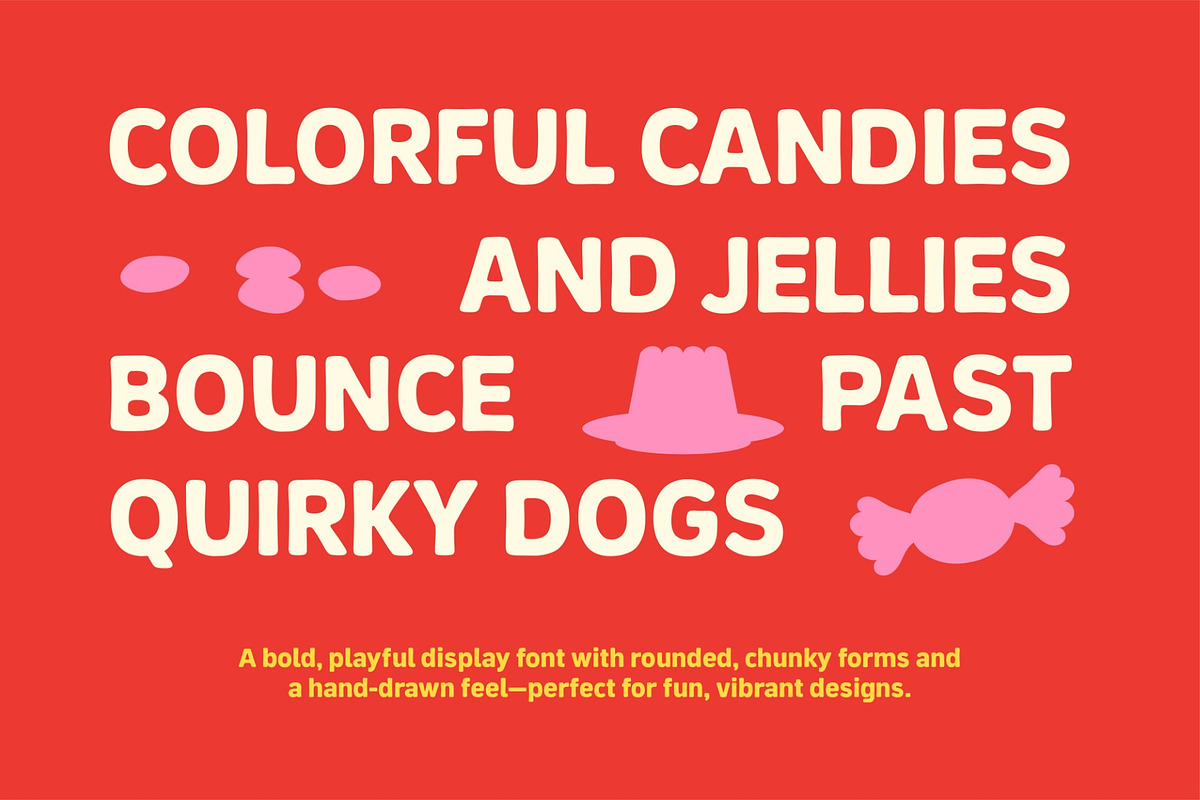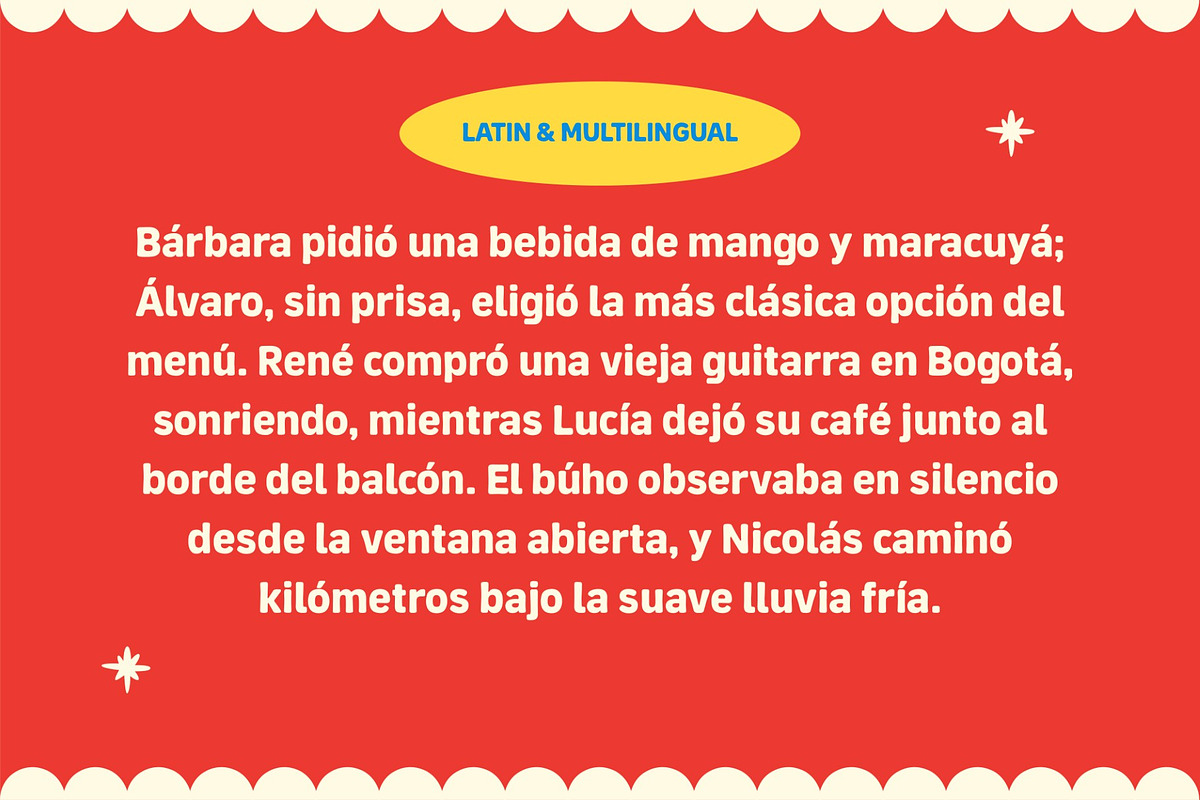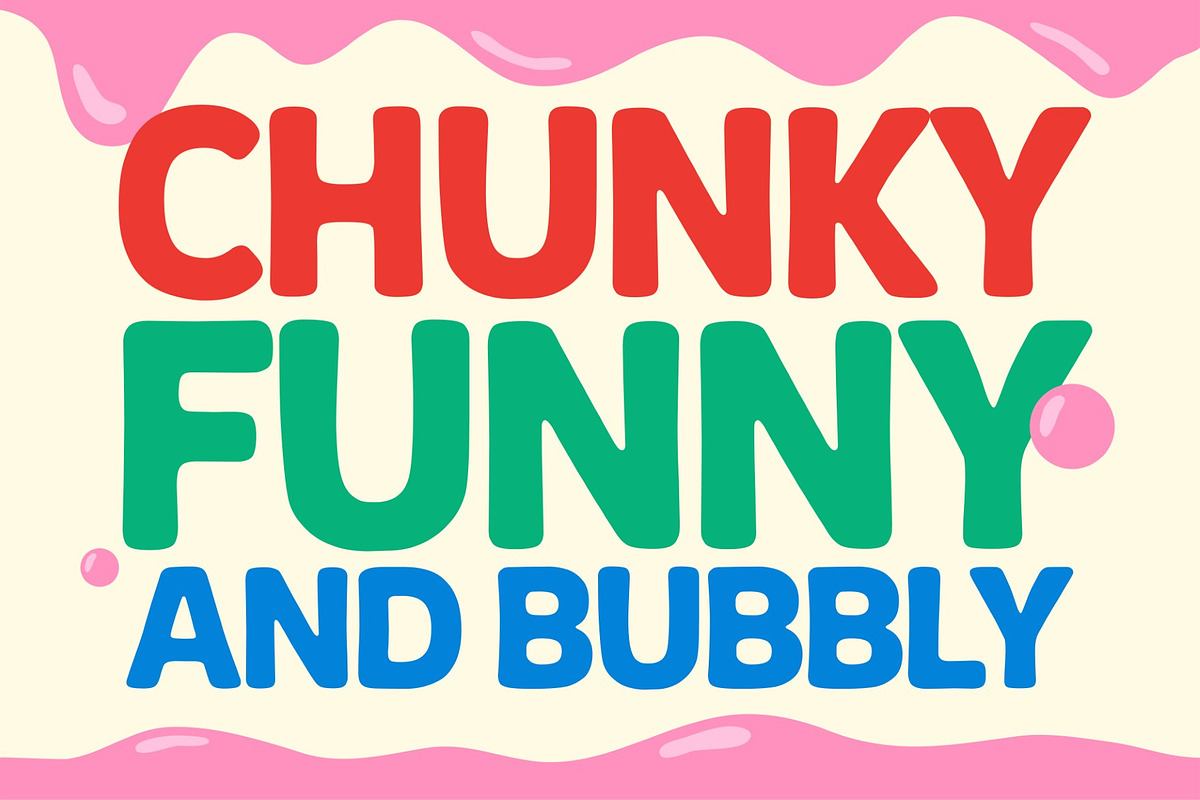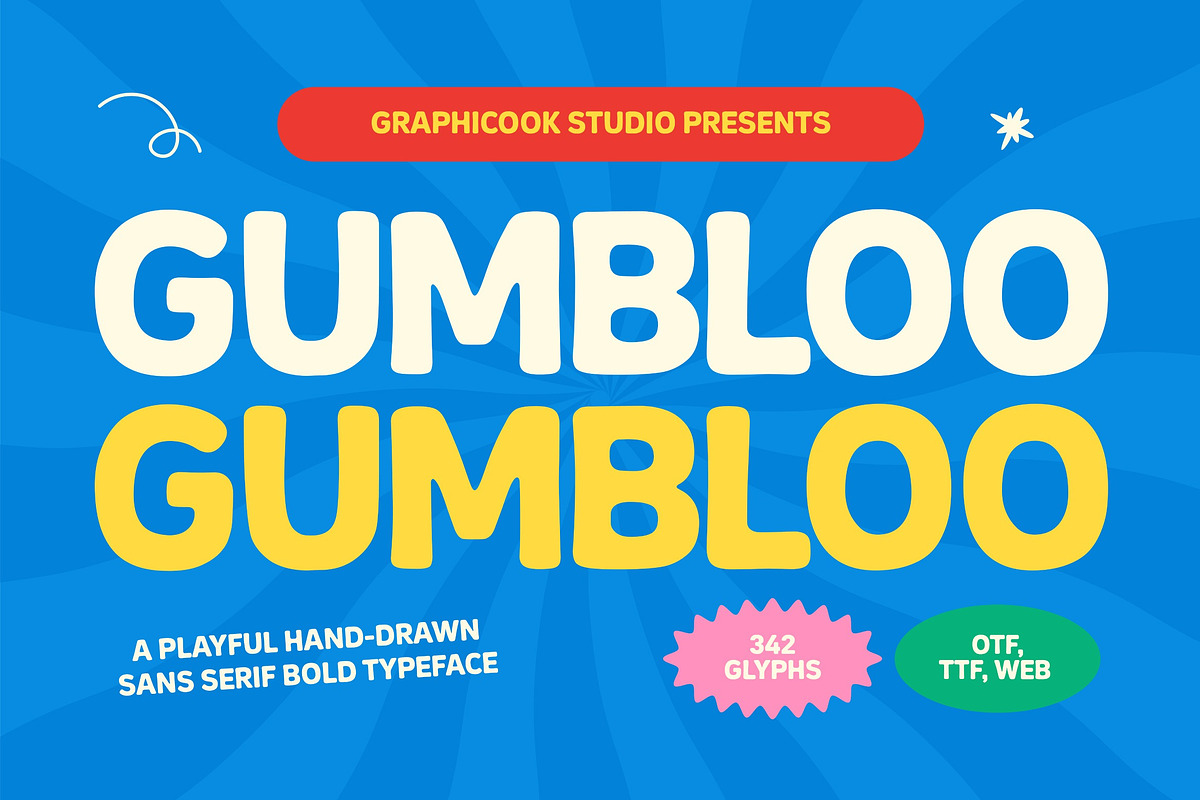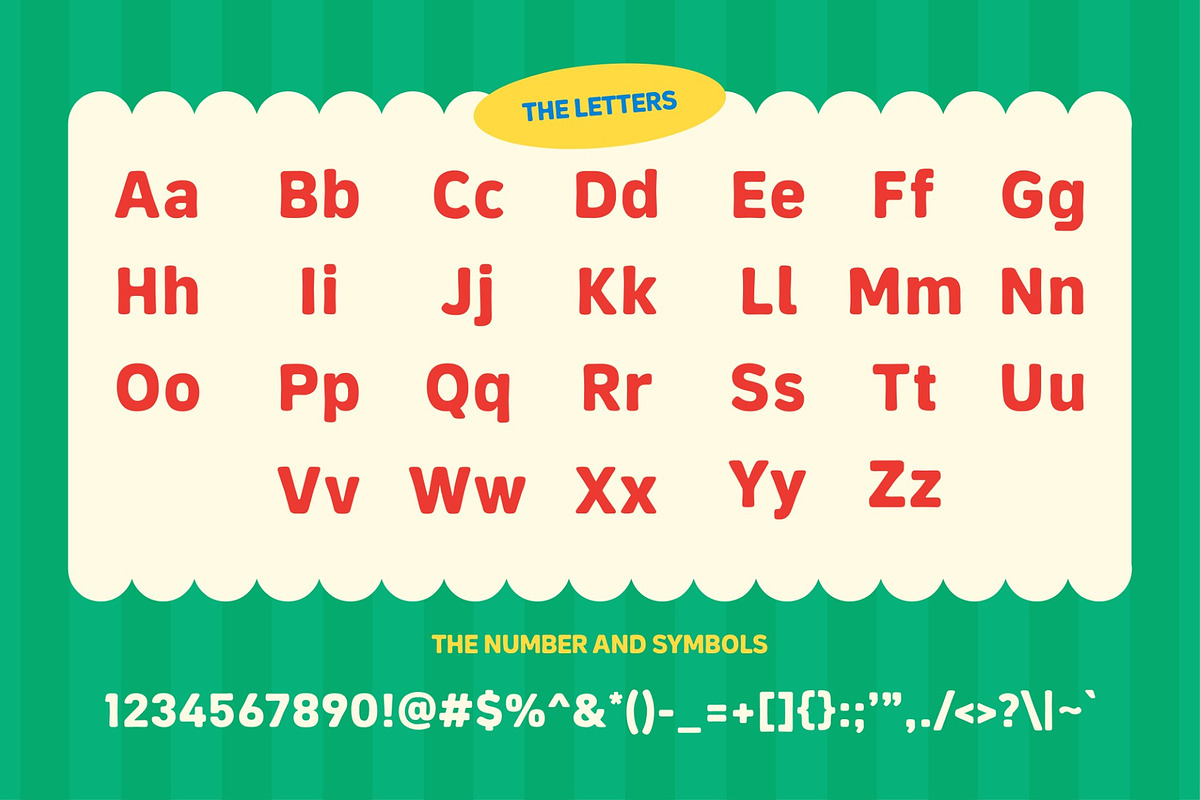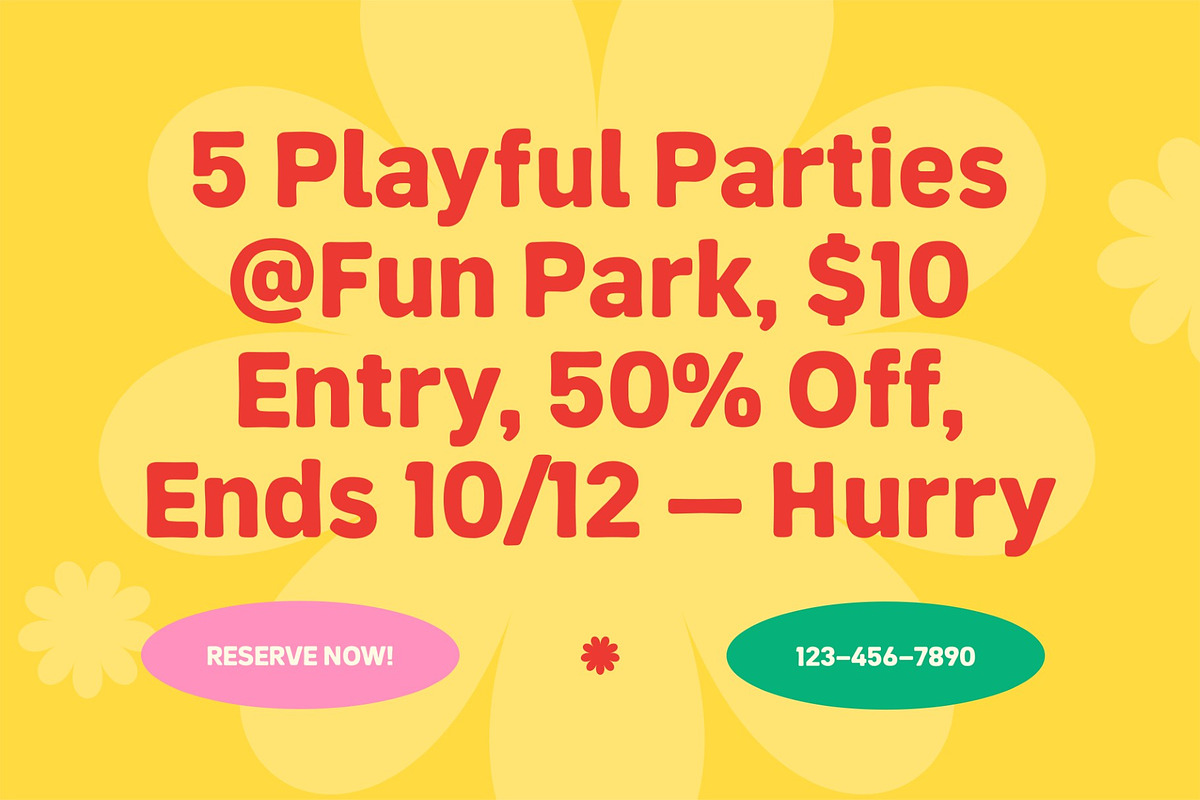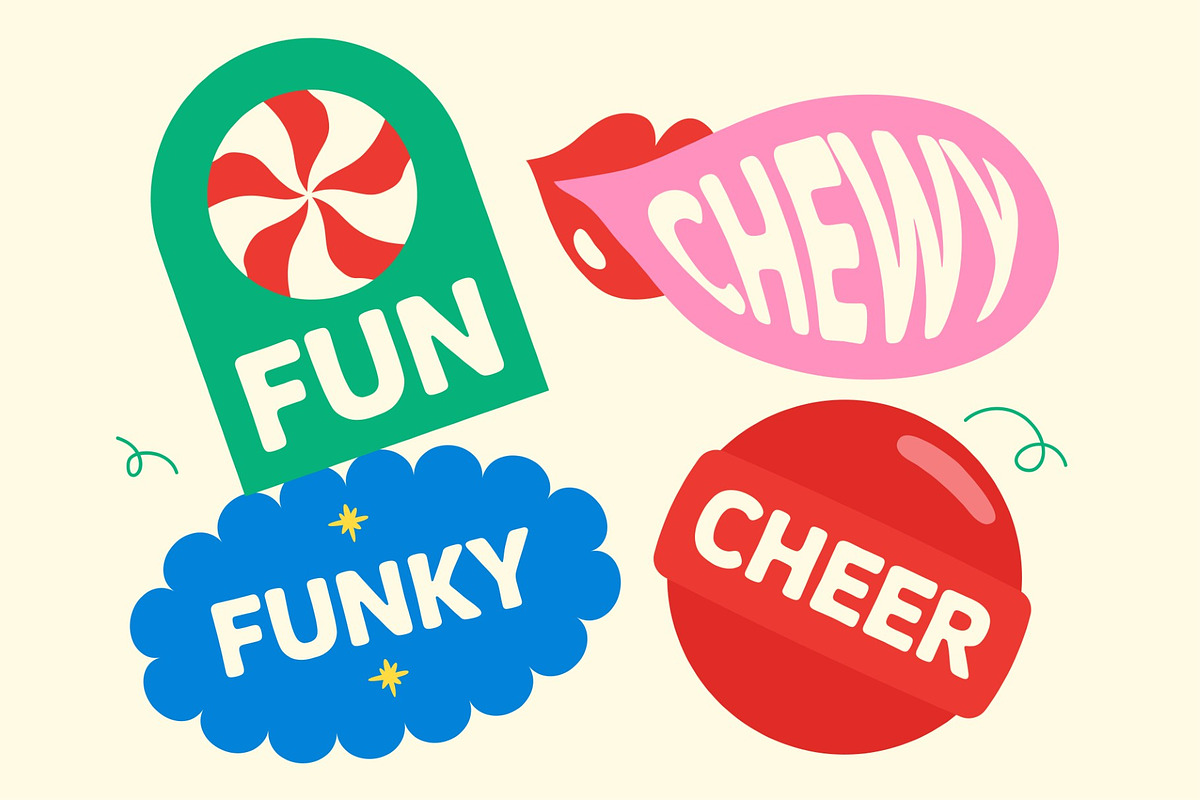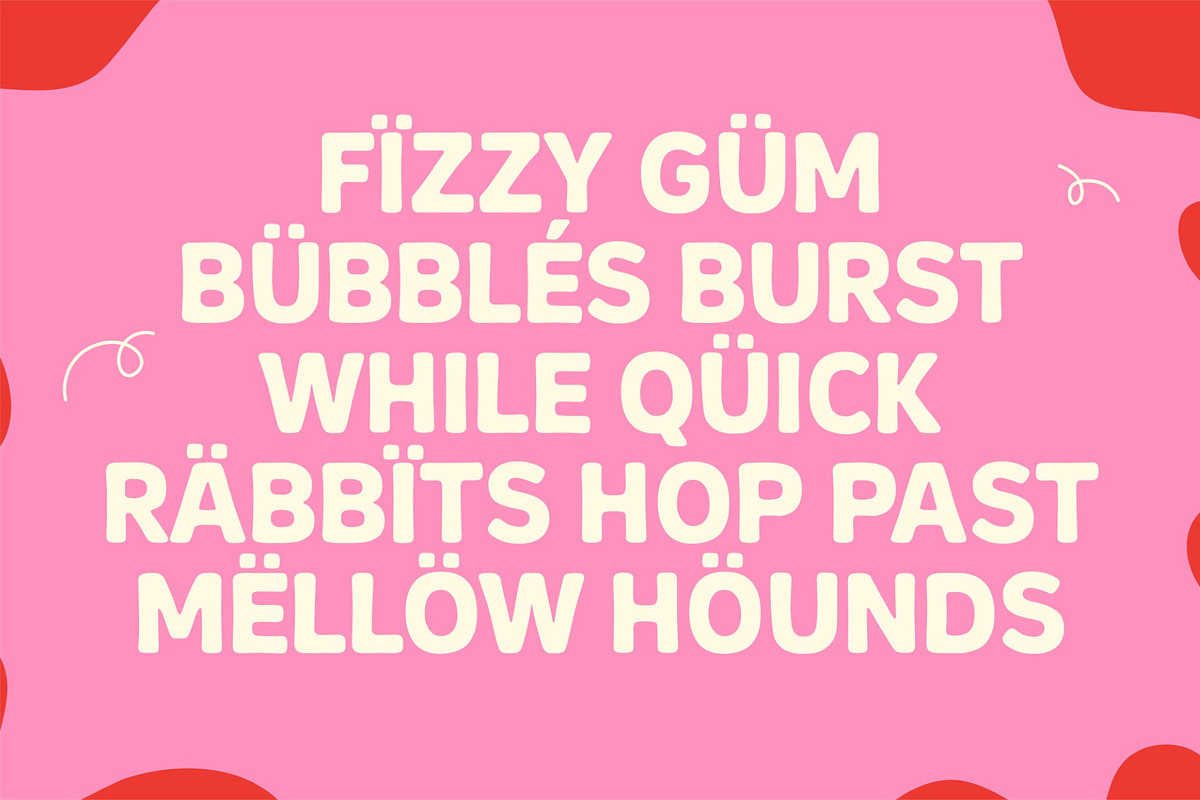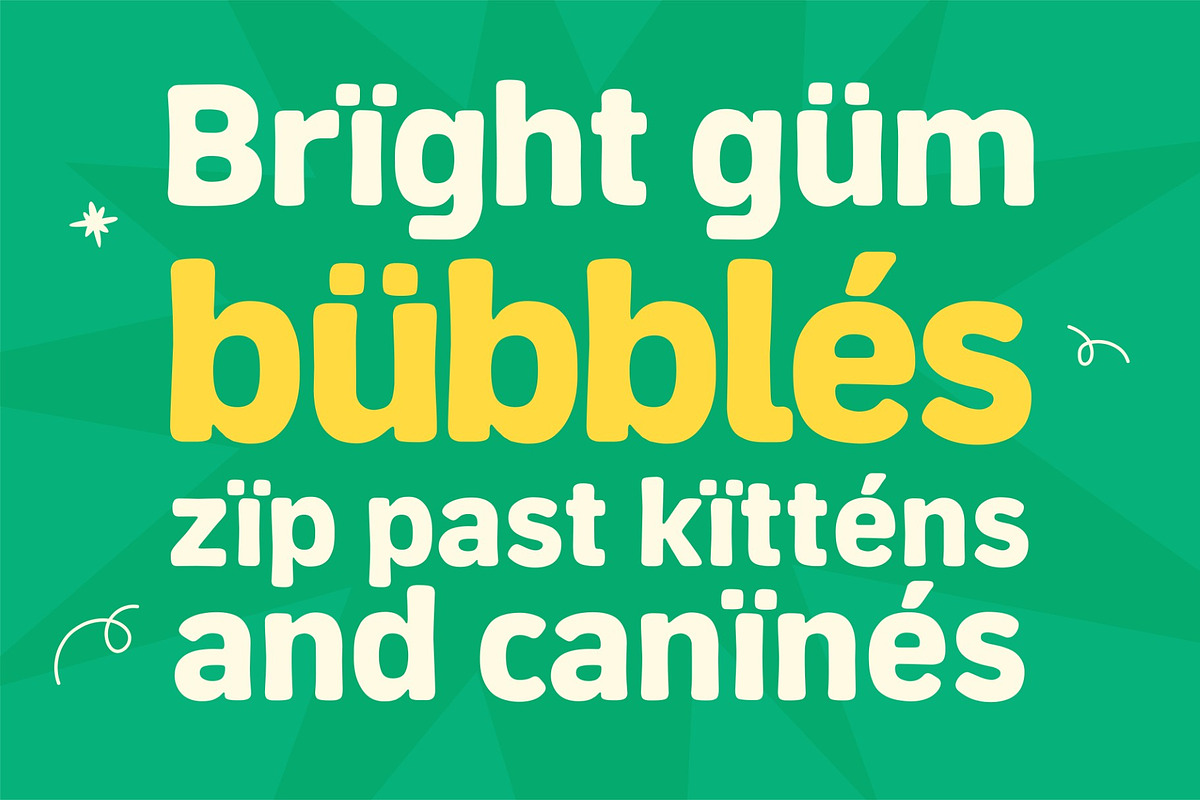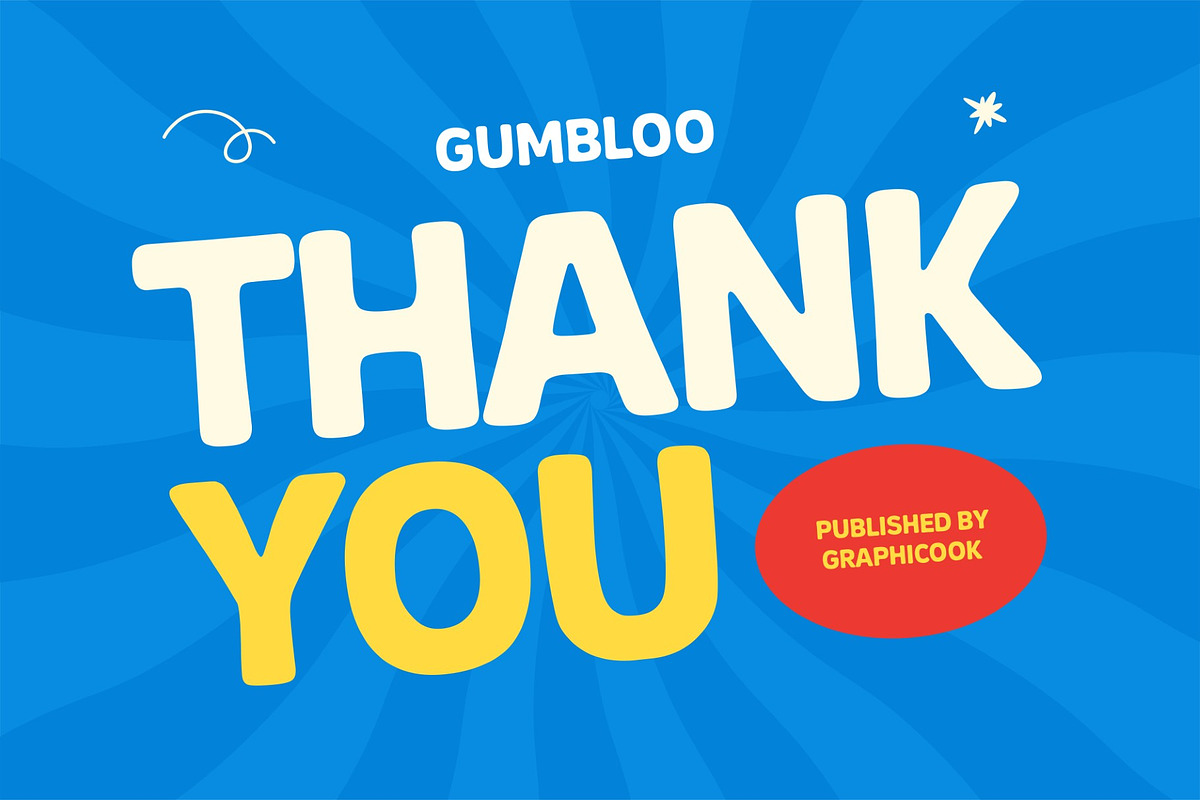
Gumbloo
Gumbloo is a bold hand-drawn sans-serif font with thick, rounded letterforms that create a cheerful, friendly, and modern personality. Its handcrafted style makes it perfect for branding, packaging, logos, posters, social media graphics, children's designs, and creative projects that need a playful yet highly legible typeface.
It is perfect for headlines, logotypes, magazines, packaging, quotes, movies, games, cover albums, book covers, and flyers, it's a perfect solution for creating eye-catching designs that stand out in any context.